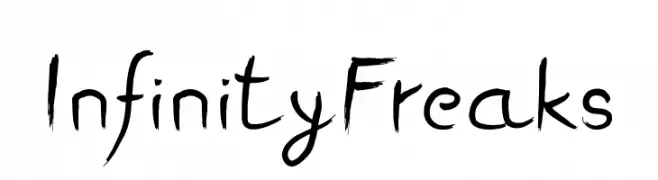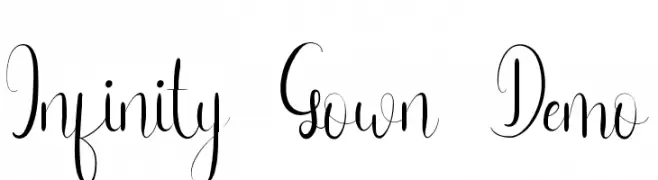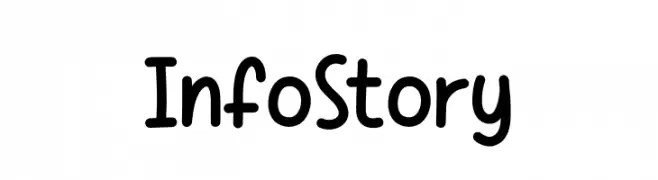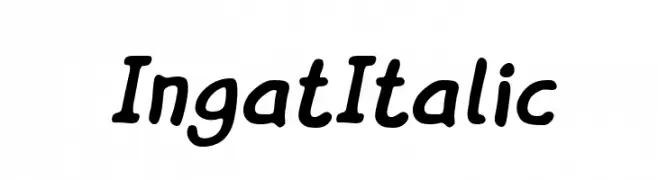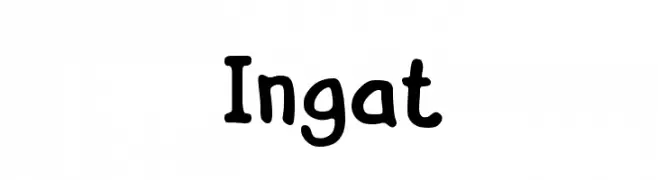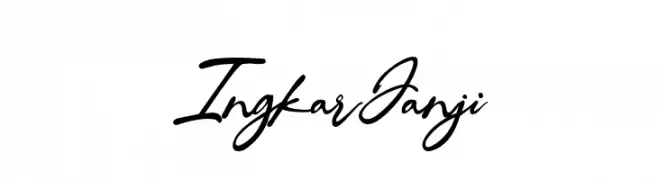
A sleek, geometric font with consistent stroke width and modern design.
A dynamic, brush-like font with fluid, organic strokes and a hand-drawn quality.
A flowing, elegant script font with intricate loops and high contrast.
A bold, geometric font with a condensed, modern style.
A playful, rounded font with a friendly and approachable style.
Decorative, pictographic font with ancient, symbolic motifs.
A playful, hand-drawn font with rounded, smooth curves and a friendly appearance.
A playful, handwritten-style italic font with smooth, rounded strokes.
A lively and elegant script font with flowing, interconnected letterforms and ornate flourishes.
A flowing, cursive script font with a handwritten, elegant style.